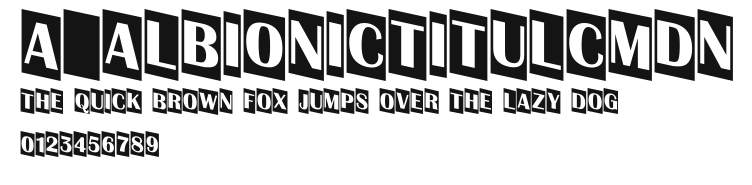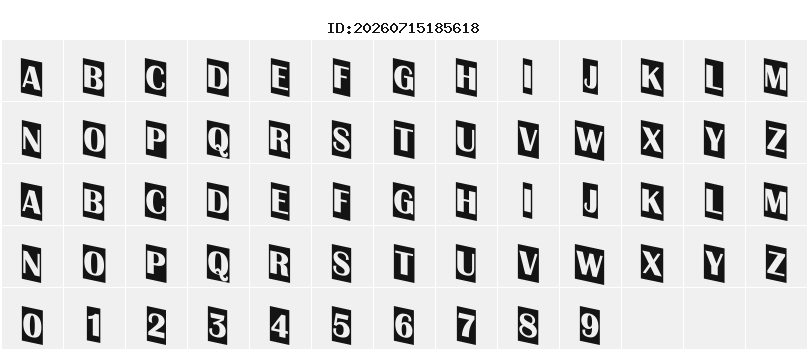
a_AlbionicTitulCmDn Preview
• Font Name: a_AlbionicTitulCmDn
• Full Font Name: a_AlbionicTitulCmDn
About a_AlbionicTitulCmDn.ttf
a_AlbionicTitulCmDn.ttf is a modern, elegant sans-serif font designed for ultimate readability and visual harmony. Perfect for branding, headlines, web design, and print materials.